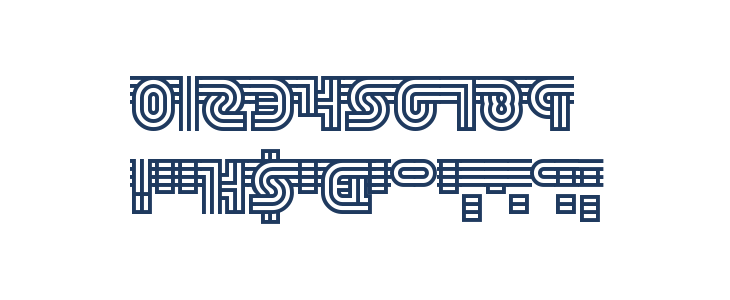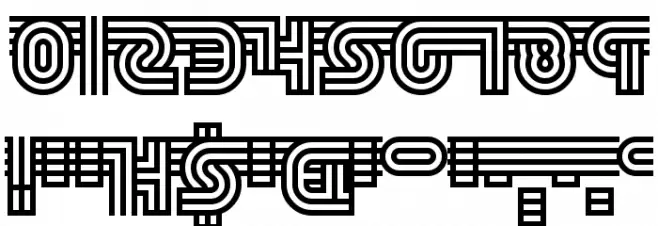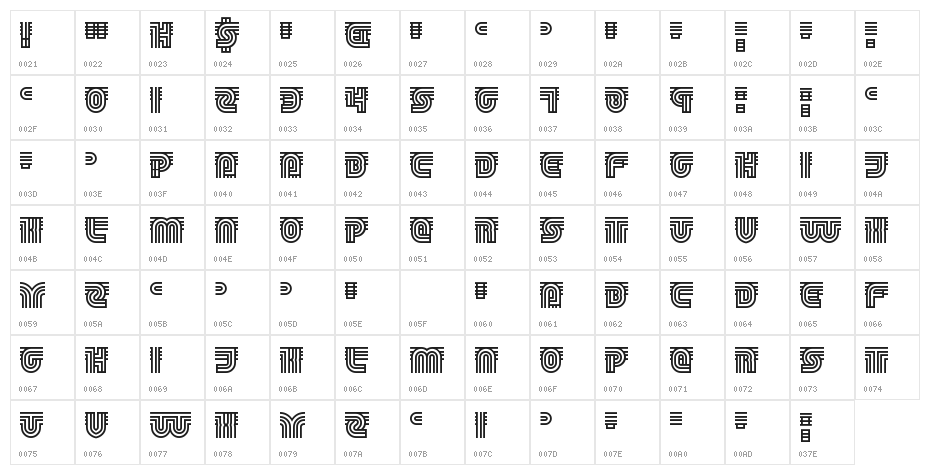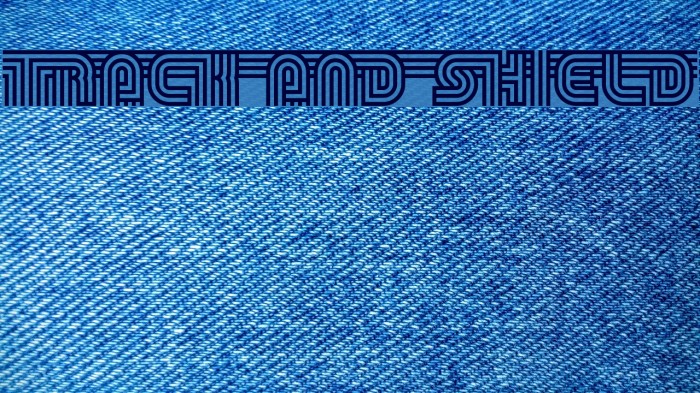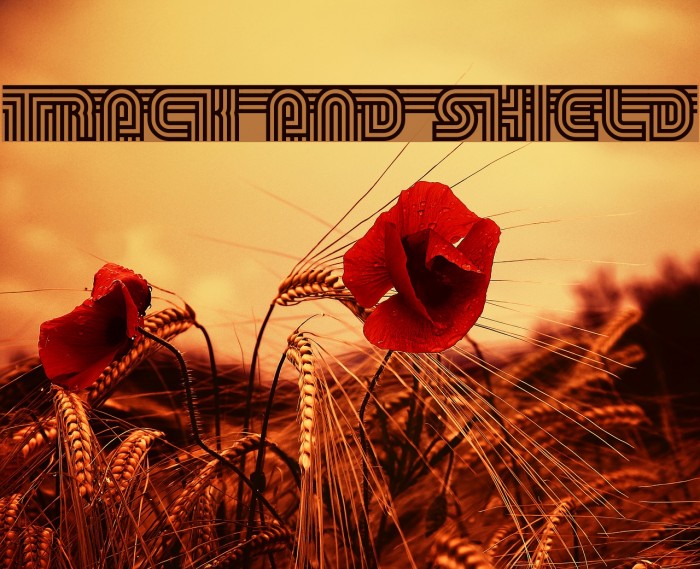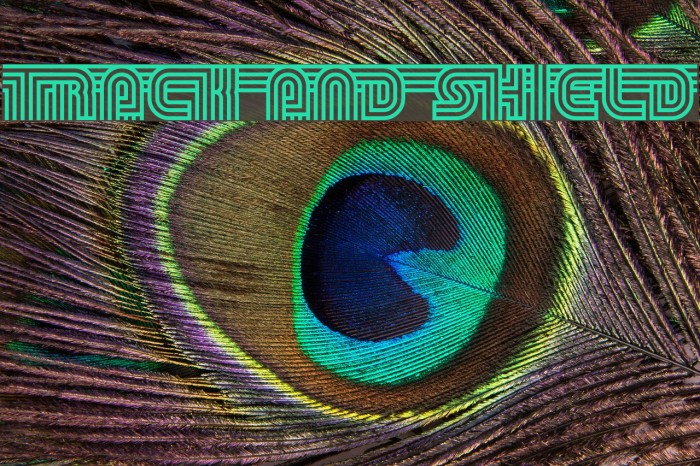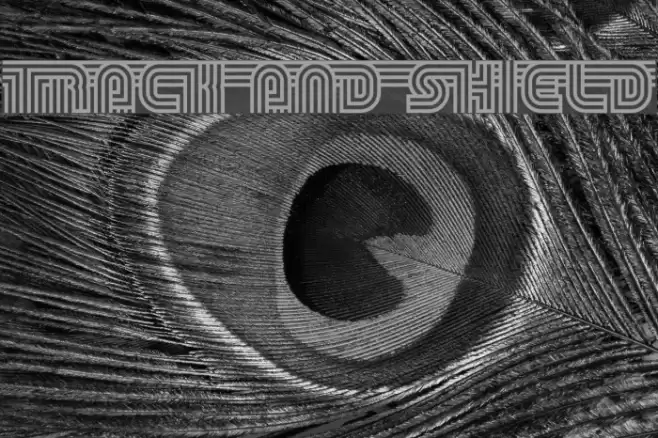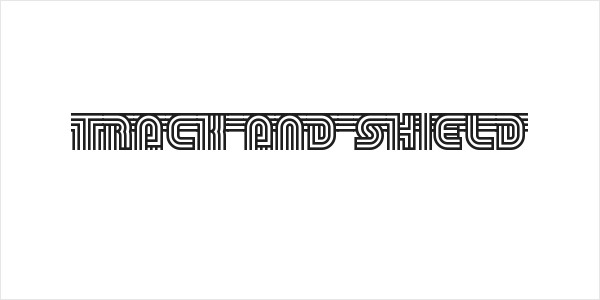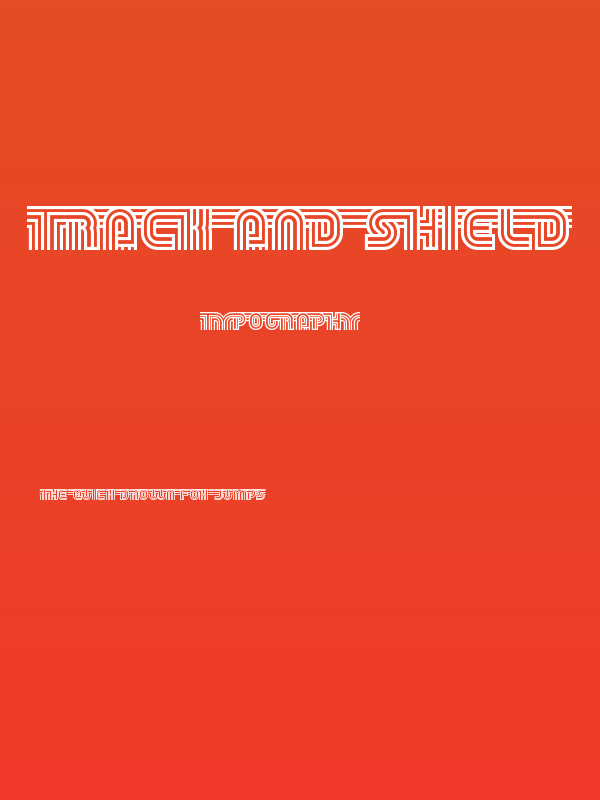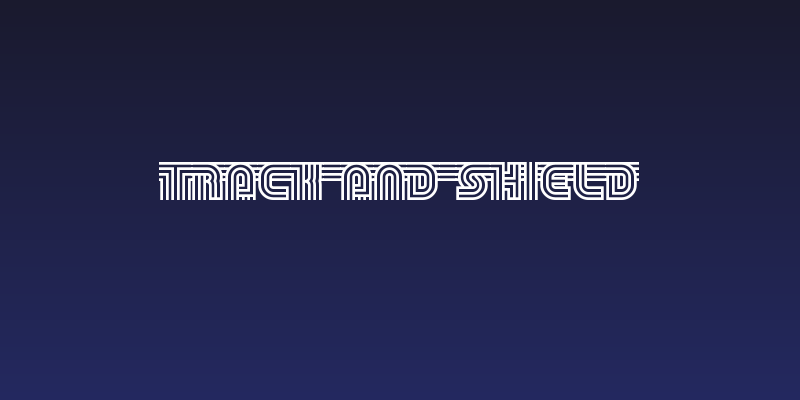
Track and Shield Font
Track and Shield Description
This font features a highly decorative and intricate design, characterized by multiple parallel lines forming each letter. The geometric structure gives it a futuristic and digital appearance, reminiscent of circuit patterns or maze-like designs. The uppercase and lowercase letters maintain a consistent style, with bold lines and sharp angles. The numbers and special characters follow the same pattern, ensuring uniformity across the typeface. This font is visually striking and demands attention, making it ideal for creative and bold design projects.
| Overall Style | Futuristic, Decorative |
| Proposed Projects | Ideal for use in digital art, sci-fi themed projects, posters, album covers, and branding that requires a modern and eye-catching typeface. |